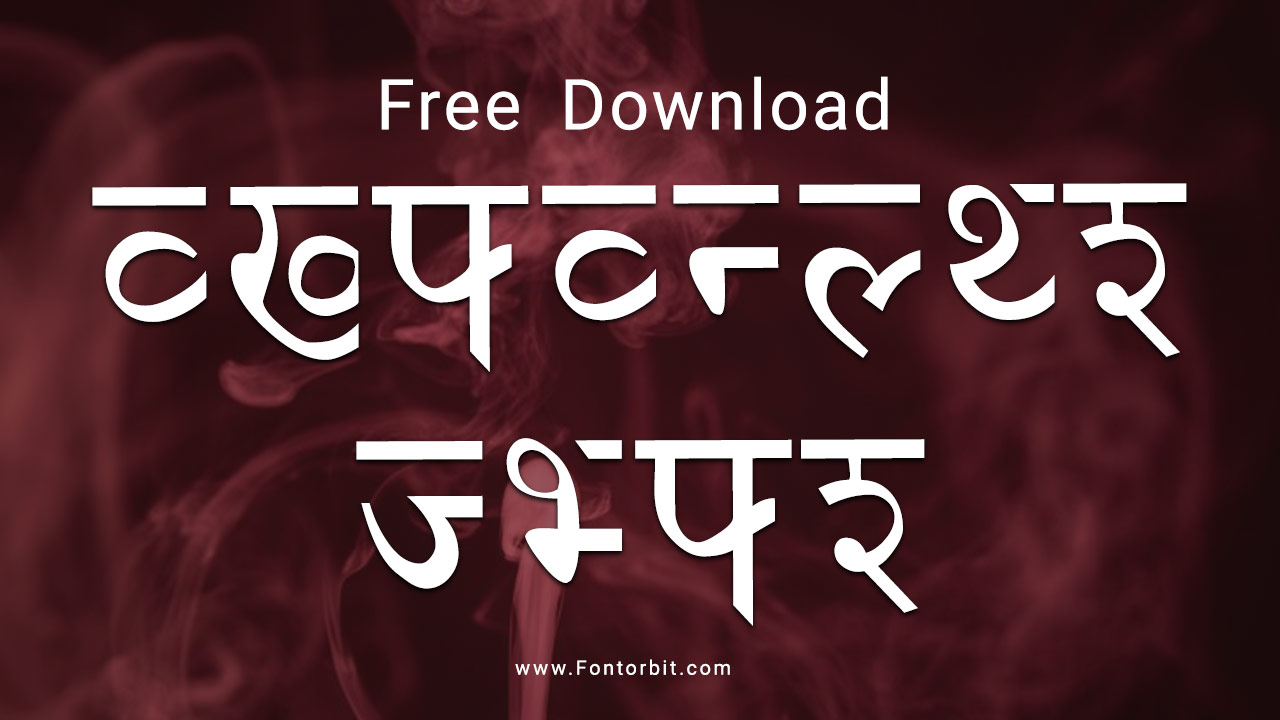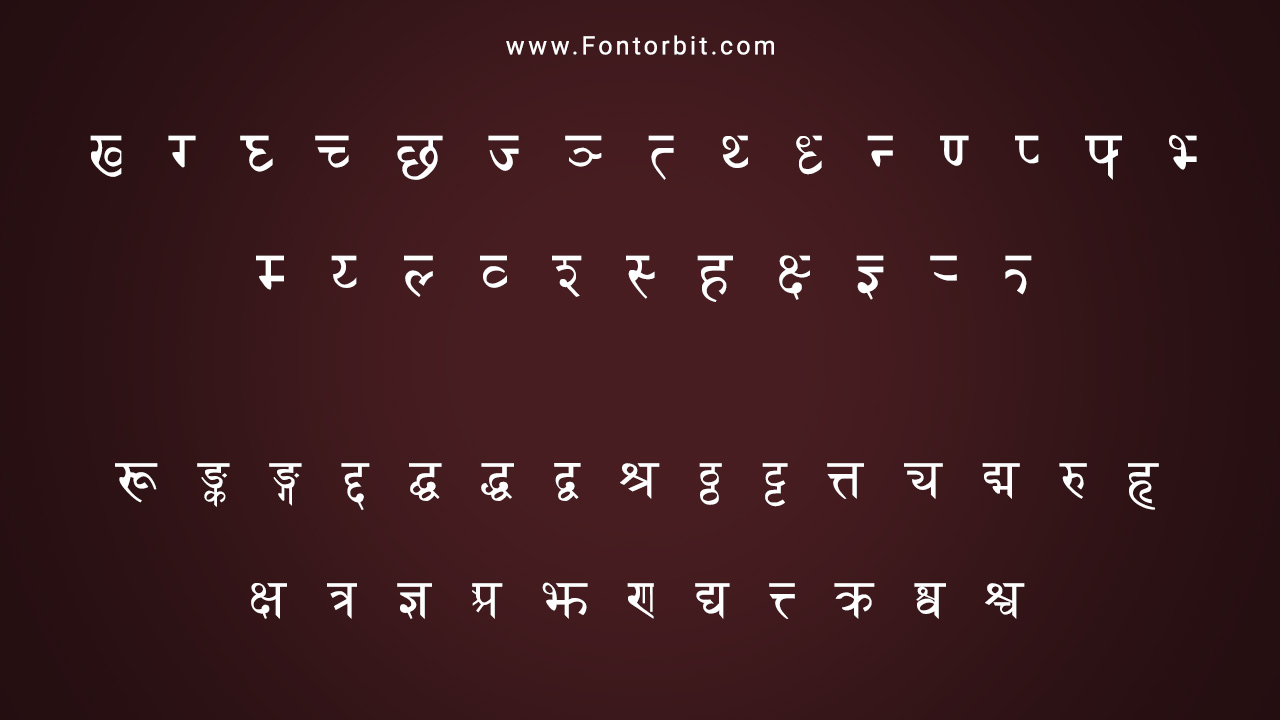
Sanskrit Font is a Devanagari font meticulously designed by John Hudson and Fiona Ross, with significant contributions from Anshuman Pandey.
It was published by Microsoft Corporation in 2015 and is based on the Monotype Devanagari typeface. This font is ideal for traditional Sanskrit typesetting. It is one of the first to support the Unicode encoding of Vedic symbols and marks, making it suitable for literary, scientific, and religious texts.
Sanskrit Font is perfect for:
- Typesetting ancient Sanskrit scriptures and texts
- Scholarly publications on Vedic literature
- Academic papers and research on Indian languages
- Designing materials for religious or cultural events related to Hinduism, Buddhism, and Jainism
- Digital content that requires accurate representation of Devanagari script
The Sanskrit Font Font Found In Use
The Sanskrit Font is widely used in various contexts, particularly in academic journals and books focused on Sanskrit and Indian studies, where it helps preserve the text’s authenticity. It is also a common choice for religious texts and prayer books, reflecting its cultural and spiritual significance.
Sanskrit Font is a well-crafted font that beautifully balances traditional design with modern technological requirements.
Its extensive support for Sanskrit’s unique conjunct sequences and Vedic symbols makes it an invaluable resource for anyone working with ancient texts. Whether you’re a scholar, a designer, or a cultural enthusiast, Sanskrit Font is a must-have for your font library.
2.What Type Of Font Is Sanskrit Font?
It is a Devanagari font family designed specifically for Sanskrit Fonts.